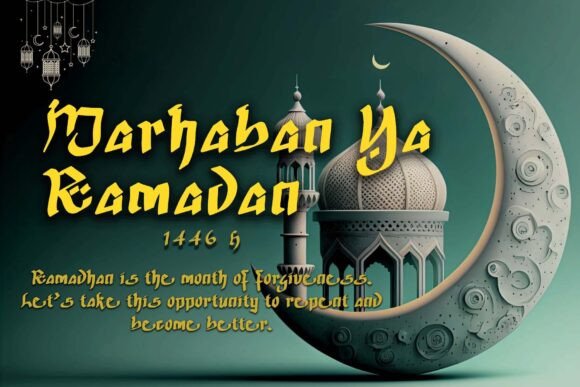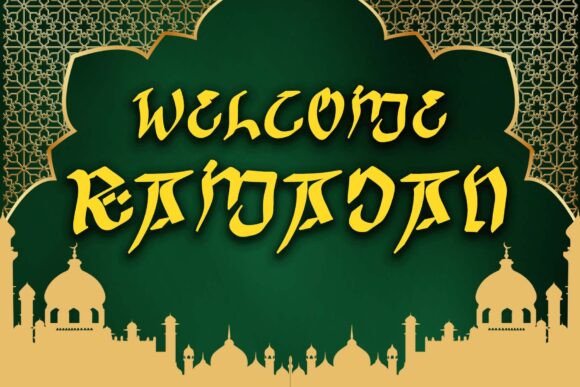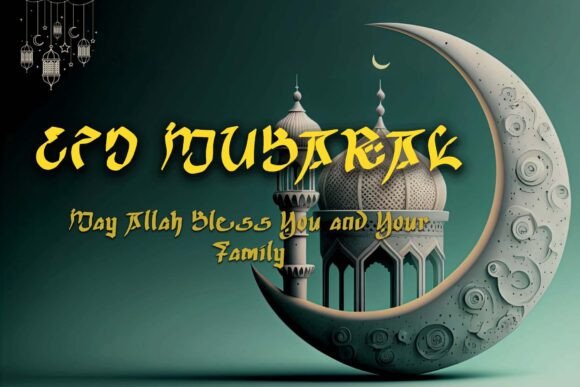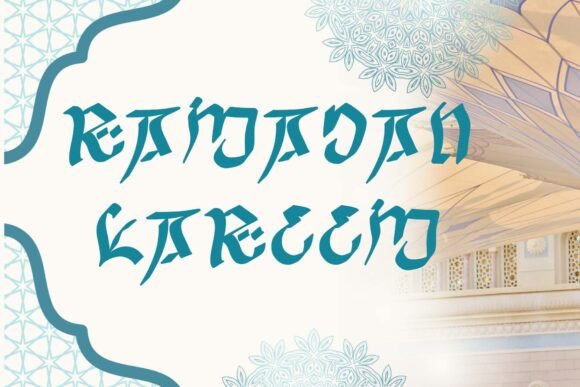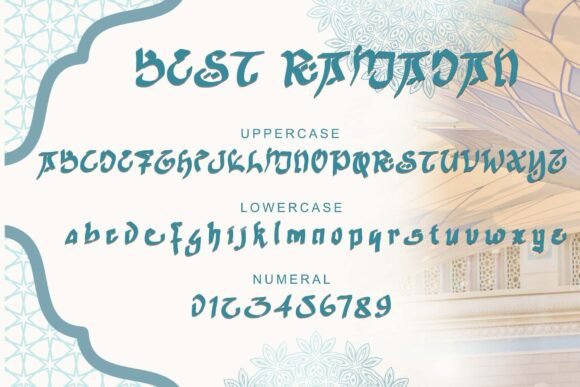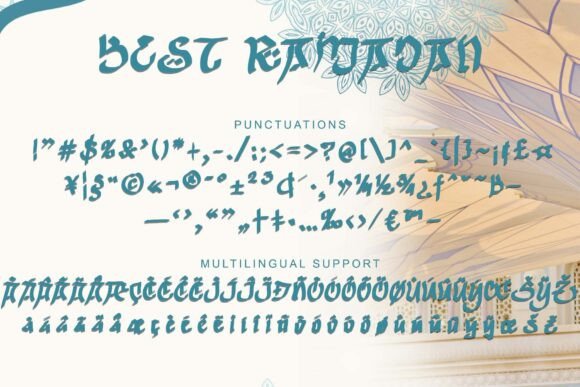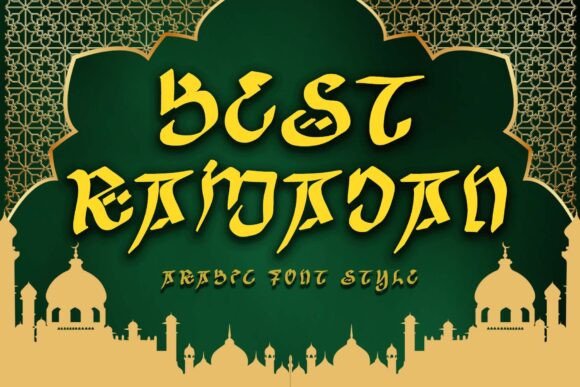
Discover the Best Ramadan Font for Your Creative Projects
Ramadan is a special time of the year, filled with spirituality, reflection, and celebration. For designers and crafters, it’s an opportunity to create stunning visual content that captures the essence of this holy month. One of the key elements in creating beautiful designs is the font used. In this article, we’ll introduce you to the “Best Ramadan” font, a unique and elegant Arabic style font that’s perfect for your Ramadan-themed projects.
What is Best Ramadan Font?
The “Best Ramadan” font is a specially designed Arabic style font that’s ideal for creating stunning visual content for Ramadan. This font is equipped with uppercase, lowercase, numeral, punctuations, and multilingual support, making it versatile and easy to use. Its elegant and unique design makes it perfect for a variety of applications, including movie titles, book titles, logos, stickers, posters, prints, branding, invitations, Ramadan greetings, and more.
Key Features of Best Ramadan Font
- Elegant and Unique Design: The “Best Ramadan” font boasts an elegant and unique design that captures the essence of Ramadan.
- Multilingual Support: This font supports multiple languages, making it easy to use for designers and crafters worldwide.
- Uppercase, Lowercase, Numeral, and Punctuations: The font includes uppercase, lowercase, numeral, and punctuations, providing everything you need to create stunning text-based designs.
- Versatile: The “Best Ramadan” font is suitable for a wide range of applications, from movie titles and book titles to logos, stickers, posters, and more.
Why Choose Best Ramadan Font?
- Perfect for Ramadan-themed Designs: The font’s elegant and unique design makes it perfect for creating stunning Ramadan-themed designs.
Best Ramadan Font in Action
The “Best Ramadan” font can be used in a variety of applications, including:
- Movie Titles: Create stunning movie titles that capture the essence of Ramadan.
- Book Titles: Design beautiful book titles that reflect the spirit of Ramadan.
- Logos: Create elegant logos for Ramadan-themed businesses or organizations.
- Stickers and Posters: Design eye-catching stickers and posters that promote Ramadan events or activities.
- Ramadan Greetings: Create heartfelt Ramadan greetings that convey your wishes to loved ones.